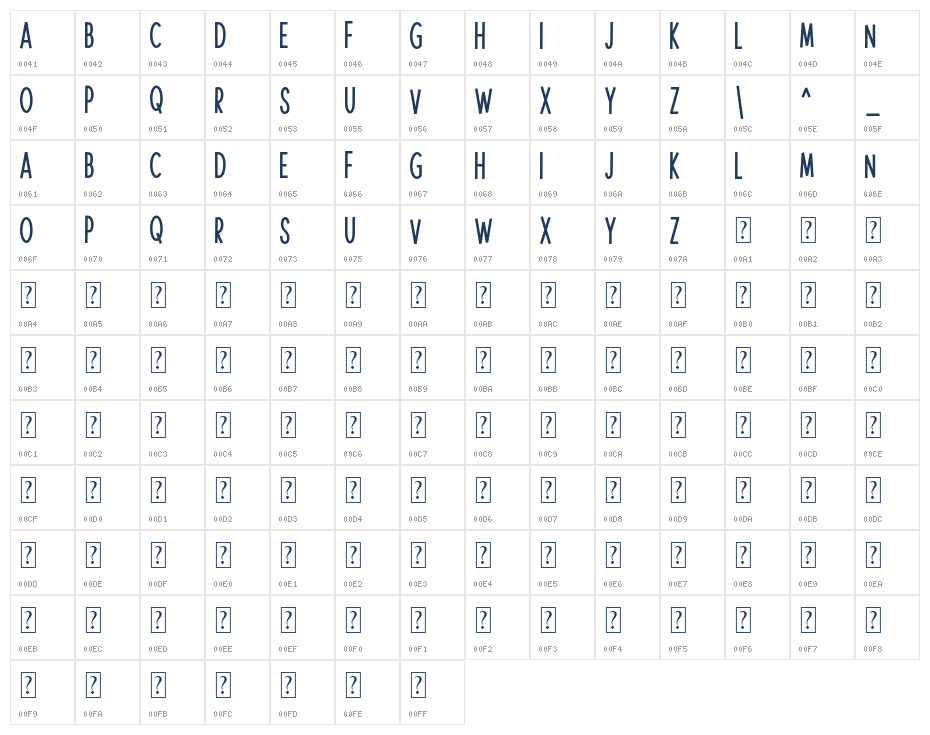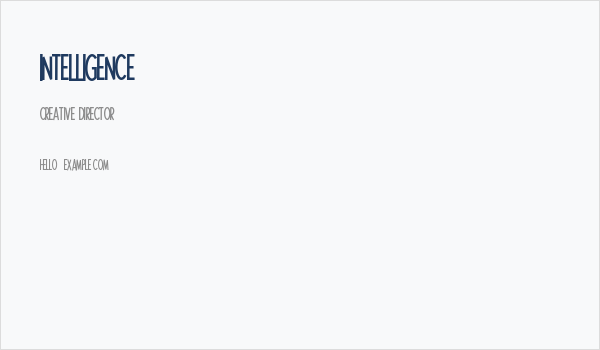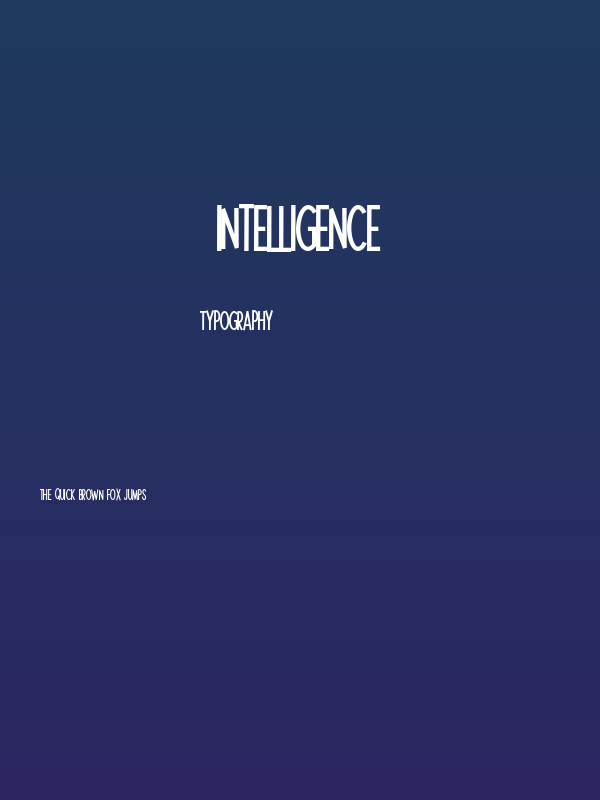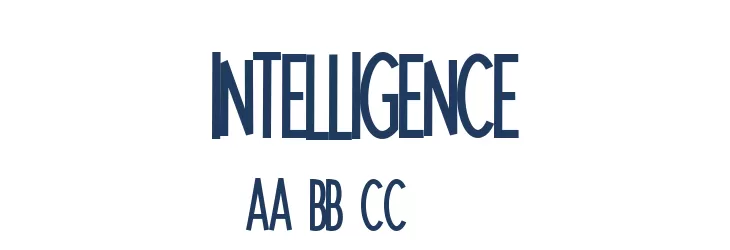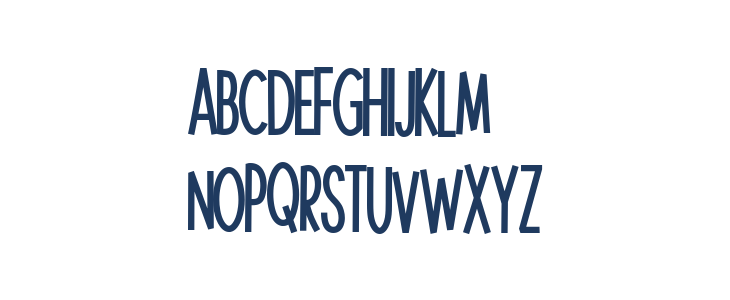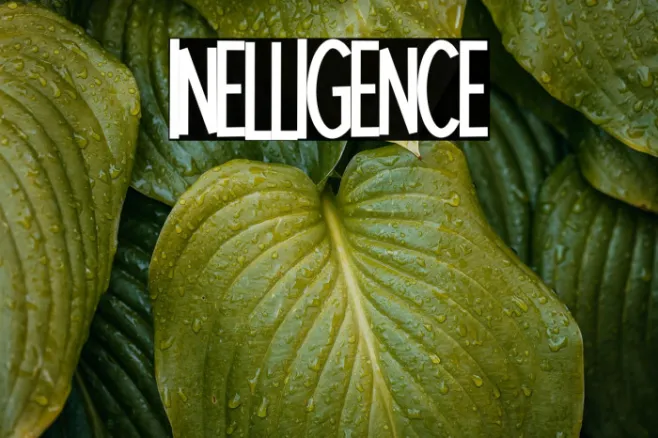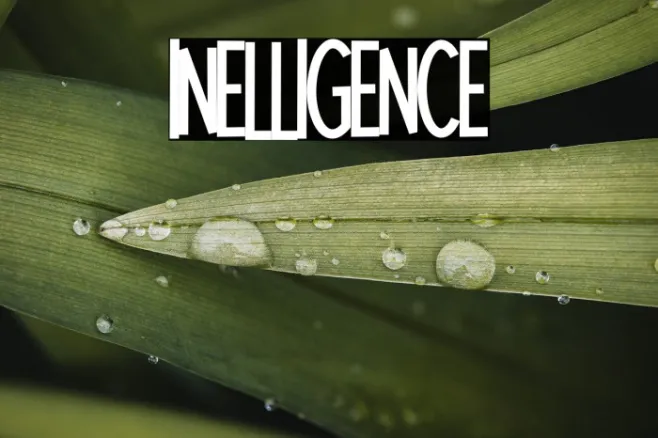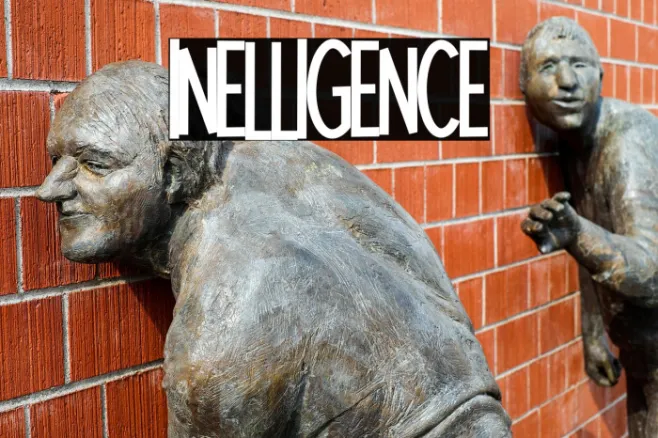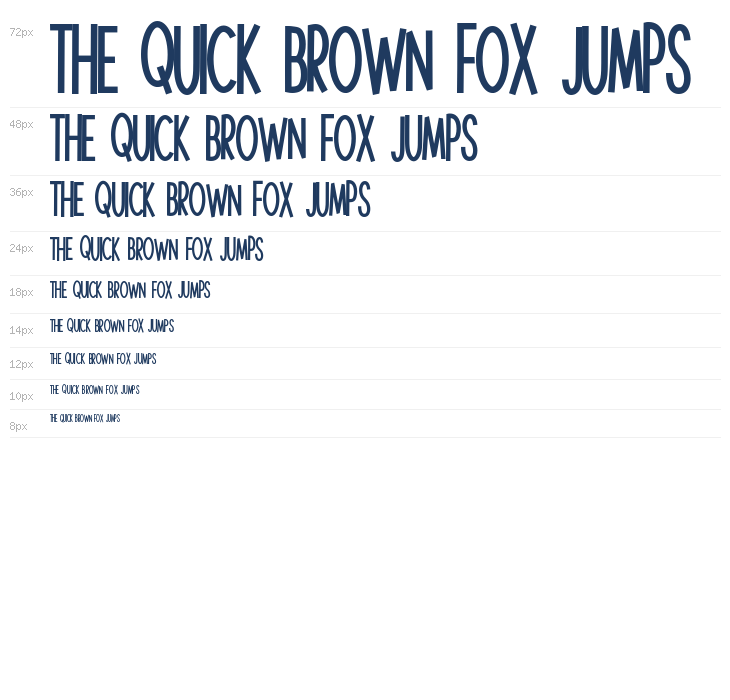
Intelligence Font
Intelligence Description
A playful, irregular sans-serif font with a hand-drawn appearance, featuring varying stroke widths and a casual style.
| Overall Style | Casual, Hand-drawn, Playful |
| Use Case | Headlines, Posters, Creative projects |